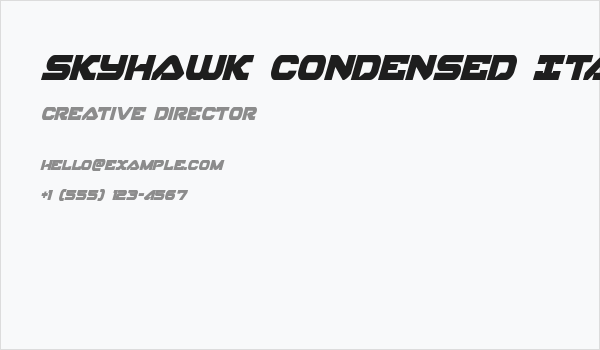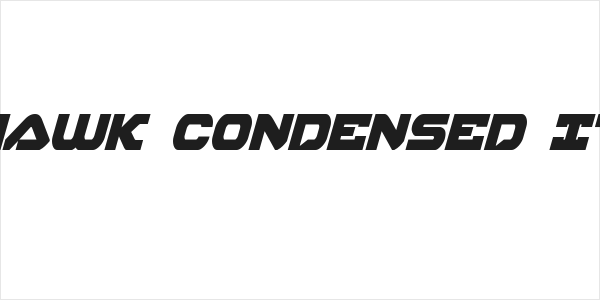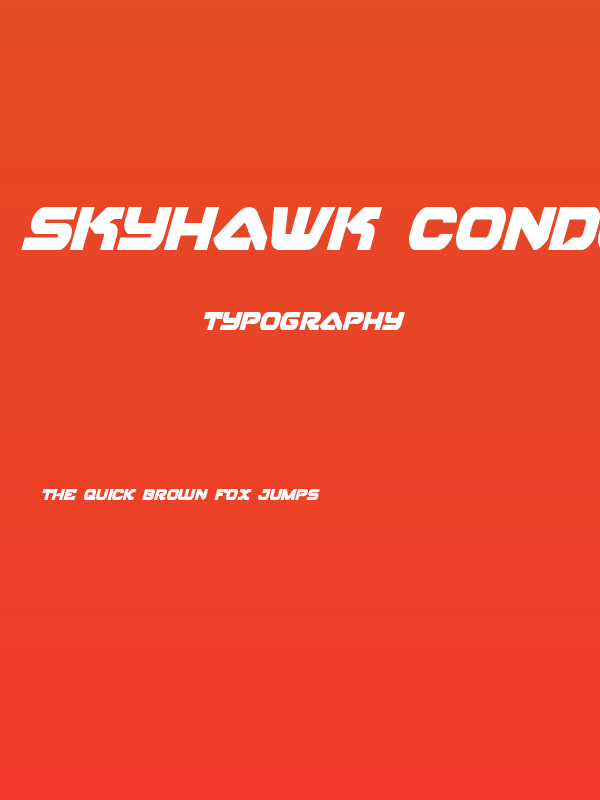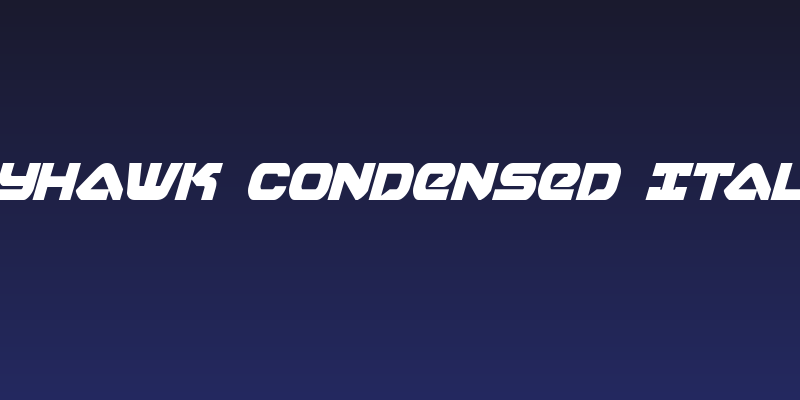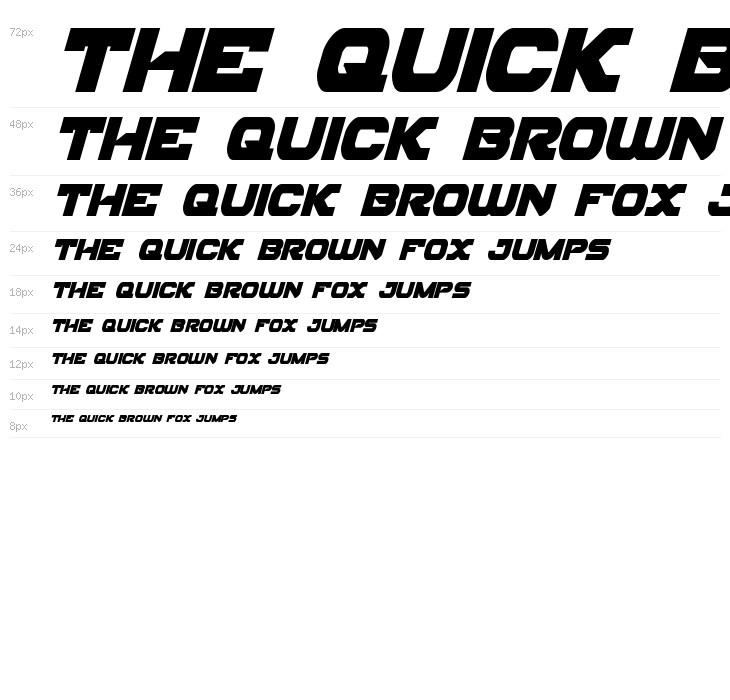
Skyhawk Condensed Italic Font
Skyhawk Condensed Italic Description
This font features a bold, italicized style with a condensed width, giving it a dynamic and modern appearance. The characters are sharply angled, creating a sense of movement and speed. The uppercase and lowercase letters maintain a consistent design, with a slight slant that enhances the italic effect. Numbers and special characters are designed to match the bold and angular style of the alphabet, ensuring a cohesive look across all text elements. The font's strong presence makes it suitable for attention-grabbing headlines and impactful designs.
Proposed ProjectsIdeal for sports branding, automotive designs, dynamic posters, and modern advertising campaigns.